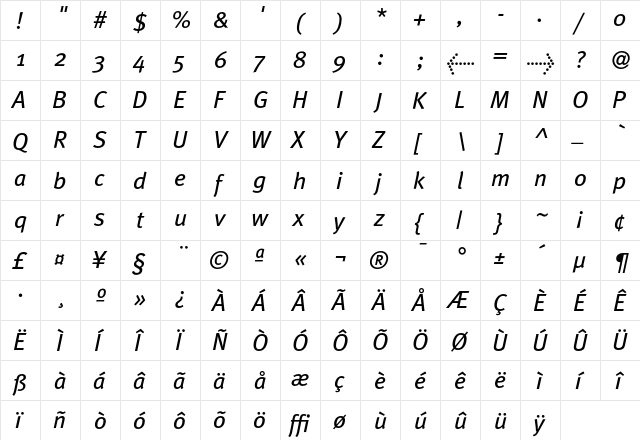
MetaPlusBook- Italic
MetaPlusBook- is a composed and adaptable typeface that performs quietly and consistently across a wide range of design contexts. Its italic angle brings a sense of urgency and motion to the letterforms.
Pro Tip: Use MetaPlusBook- for emphasis, pull quotes, and subheadings where its slanted energy can add rhythm to the layout.